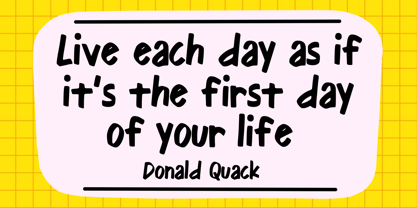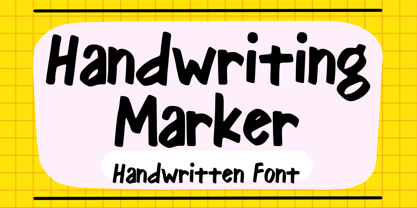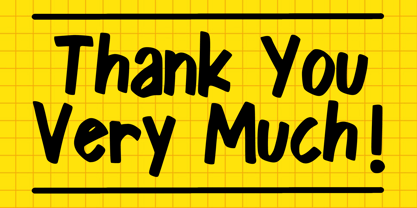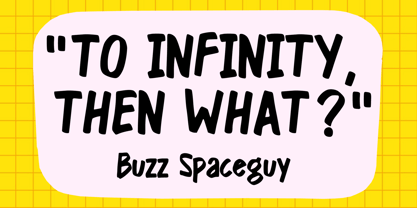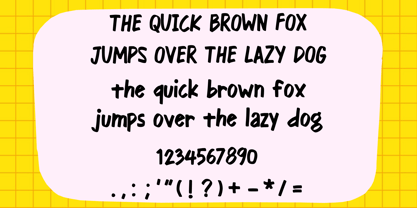
Handwriting Marker
by Mvmet
The Handwriting Marker Font Family was designed by Gabriel Valentinus and published by Mvmet. Handwriting Marker contains 1 styles. More about this family
Handwriting Marker is a cool and fun marker hand lettered font. You can use it for anything ranging from t-shirts, book designs, and greeting cards to stickers and posters, packaging designs, or anything that needs a casual touch, it will be your perfect font to pick. Fall in love with its incredibly versatile style, and use it to create lovely designs!
Designers: Gabriel Valentinus
Foundry: Mvmet